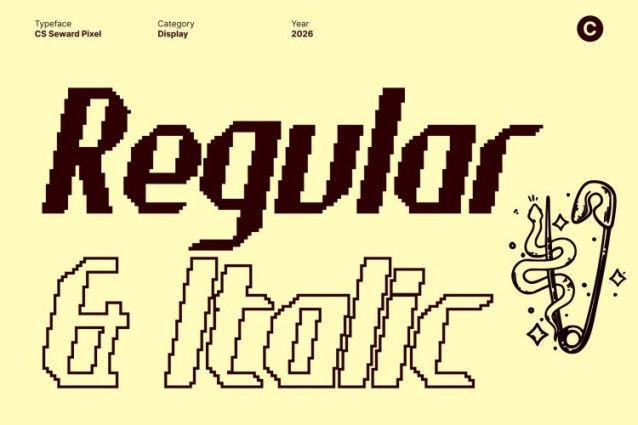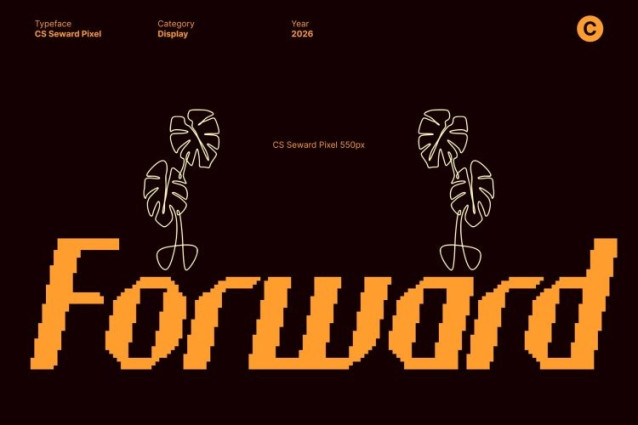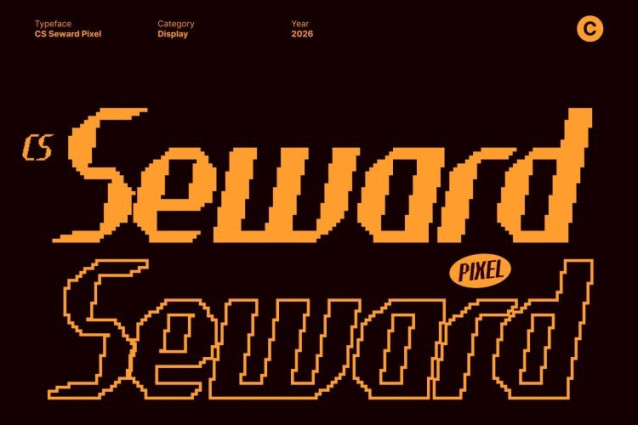
CS Seward Pixel Font
CS Seward Pixel Font This is a bold industrial display font that embodies strength, grit, and confidence. Built with solid proportions and assertive shapes, this typeface carries a commanding presence that feels tough and unapologetic. Its masculine character makes it ideal for designs that demand authority and visual impact.
Rugged Forms Enhanced with Pixel Precision
The sturdy industrial letterforms are transformed through a structured pixel grid, adding a sharp digital edge to its raw personality. The pixelated detailing introduces a retro-tech aesthetic while maintaining the heavy, mechanical feel of industrial typography. This fusion creates a unique balance between analog toughness and digital structure.
Bold Expression with Authentic Attitude
Every stroke feels deliberate and impactful. The blocky pixel construction reinforces the font’s bold nature, giving it a striking silhouette that stands out in large-scale applications. It communicates resilience, power, and authenticity perfect for brands that want to project confidence and strength.
Perfect for Branding, Packaging, and Impactful Headlines
This font excels in logos, streetwear branding, product packaging, posters, esports graphics, and bold editorial headlines. Its strong geometric presence ensures readability while delivering maximum visual weight.